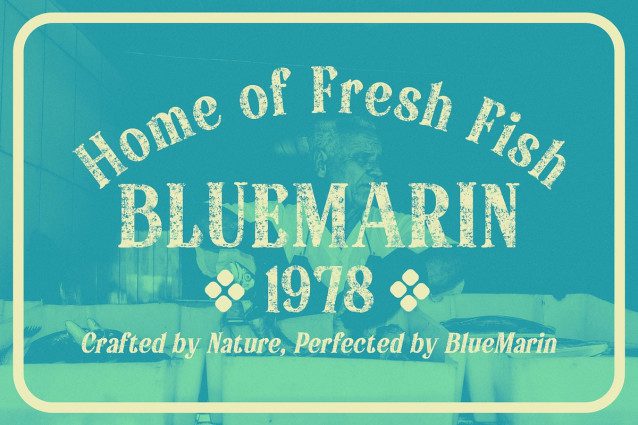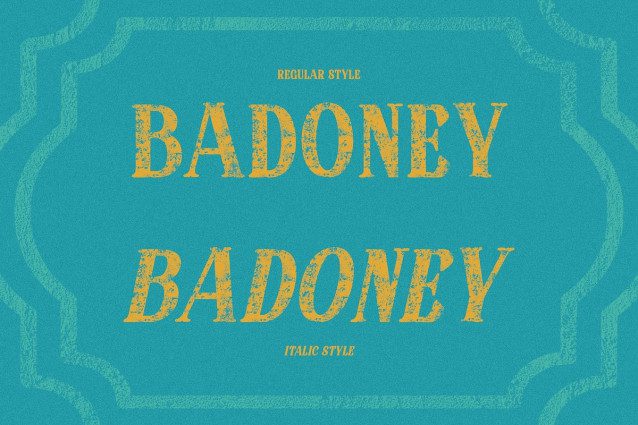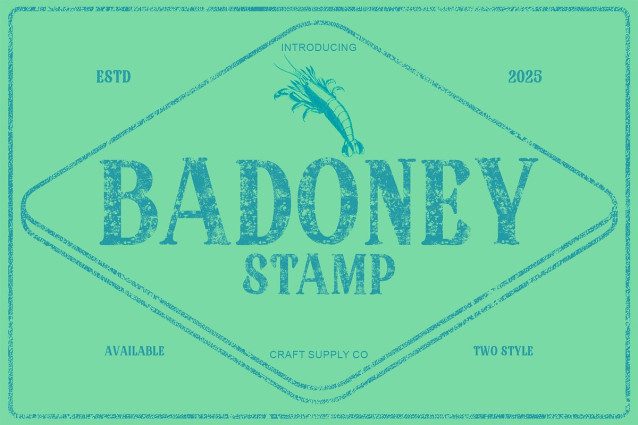
Badoney Stamp Font
Badoney Stamp Font – Vintage Serif Font with a Modern Twist Classic Serif with 70s Tuscan Influence This is a serif display font that beautifully merges retro 70s charm with modern design sensibility. Its distinctive Tuscan-style letterforms, marked by decorative curves and confident strokes, evoke a sense of nostalgia while maintaining a polished, contemporary feel. This unique blend of eras makes it both timeless and versatile, ideal for designers who appreciate vintage aesthetics with a fresh edge.
Stamp Texture for Authentic Vintage Feel The stamp effect gives a tactile and organic quality, infusing every letter with texture and warmth. This subtle imperfection enhances its nostalgic personality, making it perfect for projects that seek to capture the handcrafted essence of old printing methods. The result is a font that feels alive vintage in spirit yet energetic in presence.
Retro Aesthetics Reimagined for Modern Design This font revitalizes 70s-inspired typography through clean, well-balanced forms and a playful rhythm. It’s a perfect fit for vintage branding, retro posters, product packaging, or event graphics that aim to celebrate the beauty of the past while embracing modern creativity.
Perfect for Timeless and Expressive Projects Whether used in logos, titles, or decorative headlines, delivers personality and sophistication in equal measure. Its combination of classic Tuscan structure, vintage texture, and modern flair ensures your designs stand out with confident, nostalgic energy.